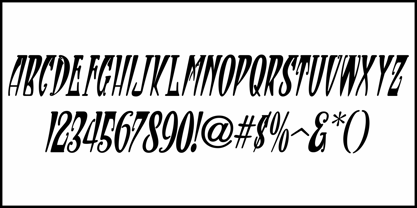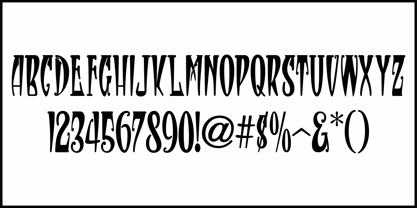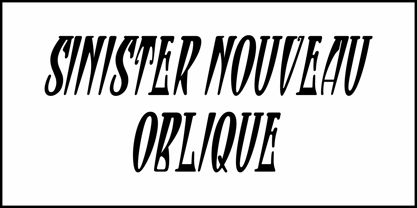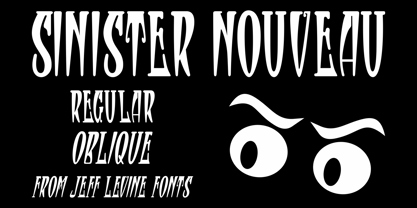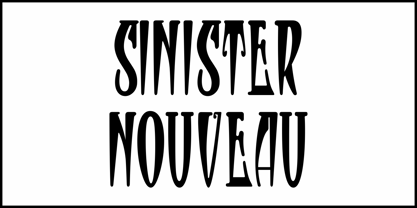
Sinister Nouveau JNL
by Jeff Levine
The condensed Art Nouveau hand lettered title for the masthead of the January 4, 1908 issue of the San Francisco Dramatic Review gives the impression of horror movie titles and other such "creepy" lettering.
With this in mind, the digital recreation of this type design was aptly named Sinister Nouveau JNL, and is available in both regular and oblique versions.